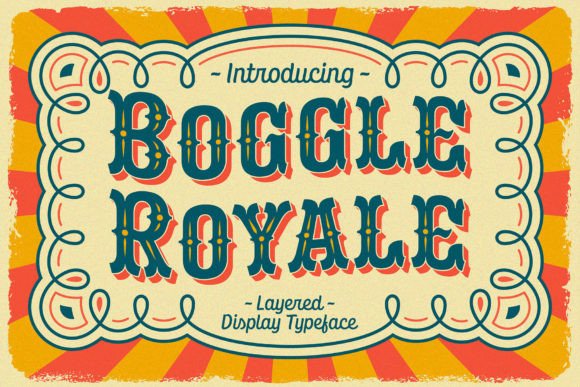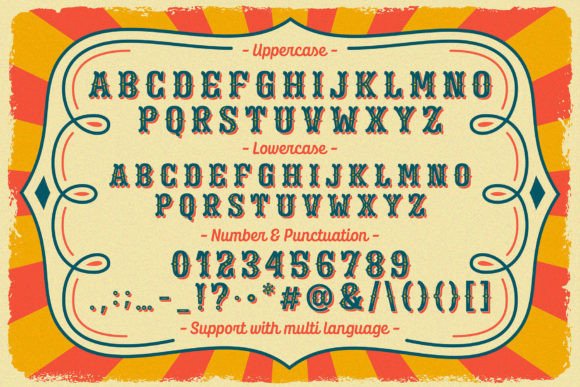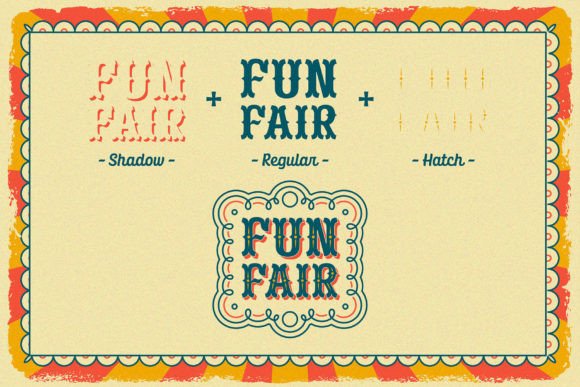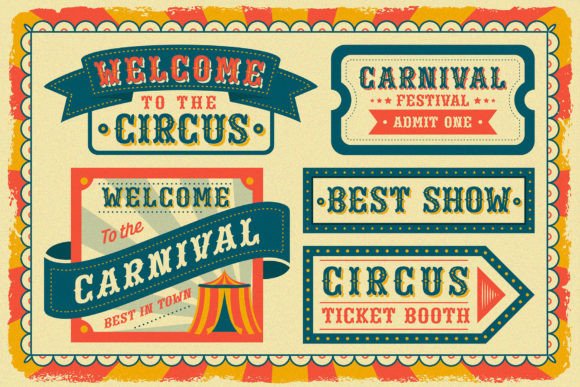
Boggle Royale Font: Vintage Circus Display Typography for Bold Headlines
About the Boggle Royale Font
Make a bold statement with Boggle Royale Font, a powerful and memorable font. Boggle Royale is a layered display typeface inspired by the vintage design of circus and festival signage. Add it confidently to your projects and you will be astounded by the outcome generated!
Boggle Royale’s bold, playful personality makes it ideal for headlines, posters, and branding projects requiring a vintage, celebratory feel. It works exceptionally well for short, impactful text on packaging or promotional materials. However, its layered design and relatively large x-height make it unsuitable for body text or extended reading. Avoid using it in UI or small-scale applications.
Pairing Boggle Royale effectively requires considering its strong visual presence. A clean sans-serif like Open Sans or Lato provides a solid contrast, balancing the font’s ornate details. For a more playful approach, a rounded geometric sans-serif like Circle Std would enhance its vintage carnival aesthetic. Conversely, a delicate script font could add a touch of refined elegance.
The font evokes a sense of fun and nostalgia, making it a perfect fit for brands focused on entertainment, festivals, or products with a retro appeal. Its confident, slightly irreverent nature lends itself to projects that prioritize bold visual impact and a sense of playful energy.
Boggle Royale Font Usage Examples
Boggle Royale Font Example